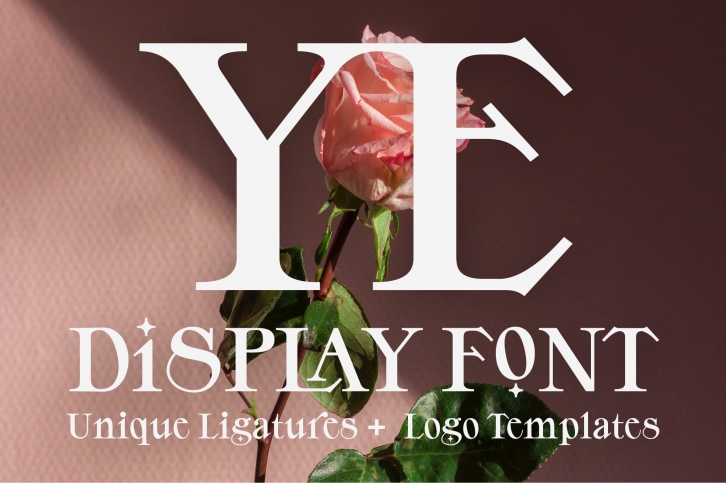
YE Display is a gorgeous font that was realeased on June 2, 2021. The font can be used in many style contexts and design environments. Perfect for invitations, magazines, websites, logos, and more! It was designed by That That Creative and the file size is 2.30 MB. Thanks for checking out this font!